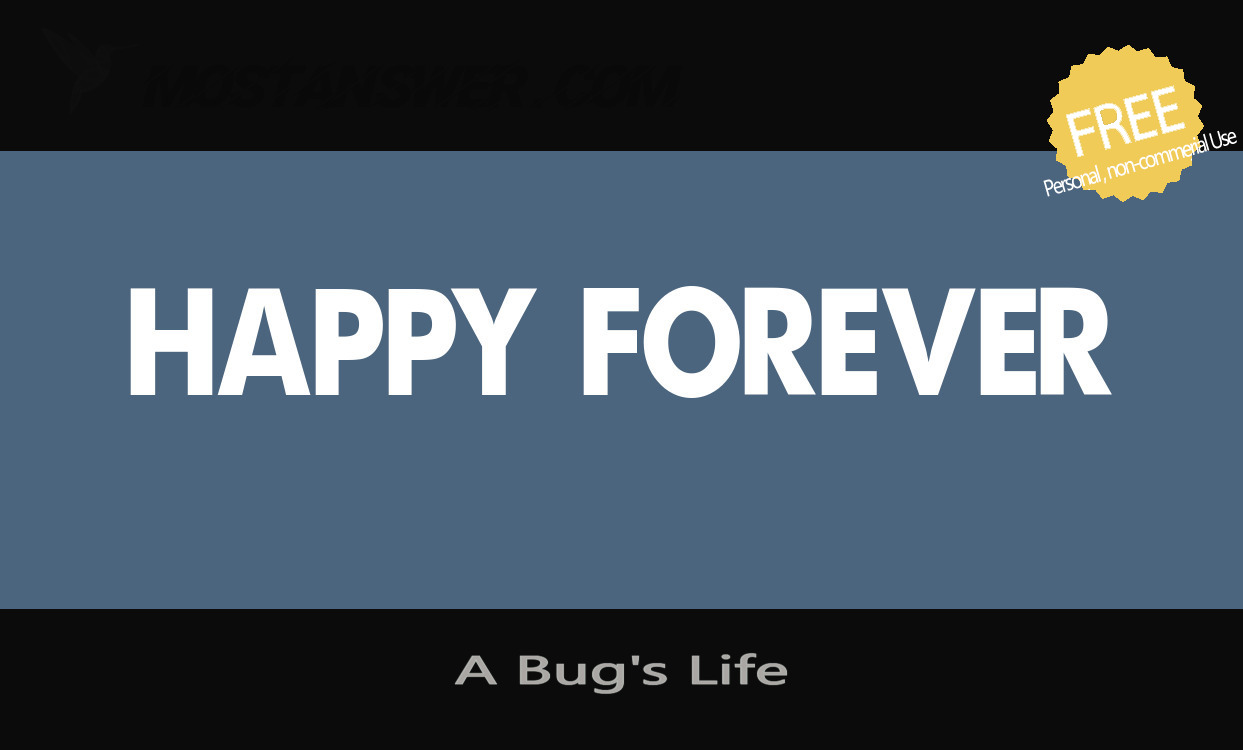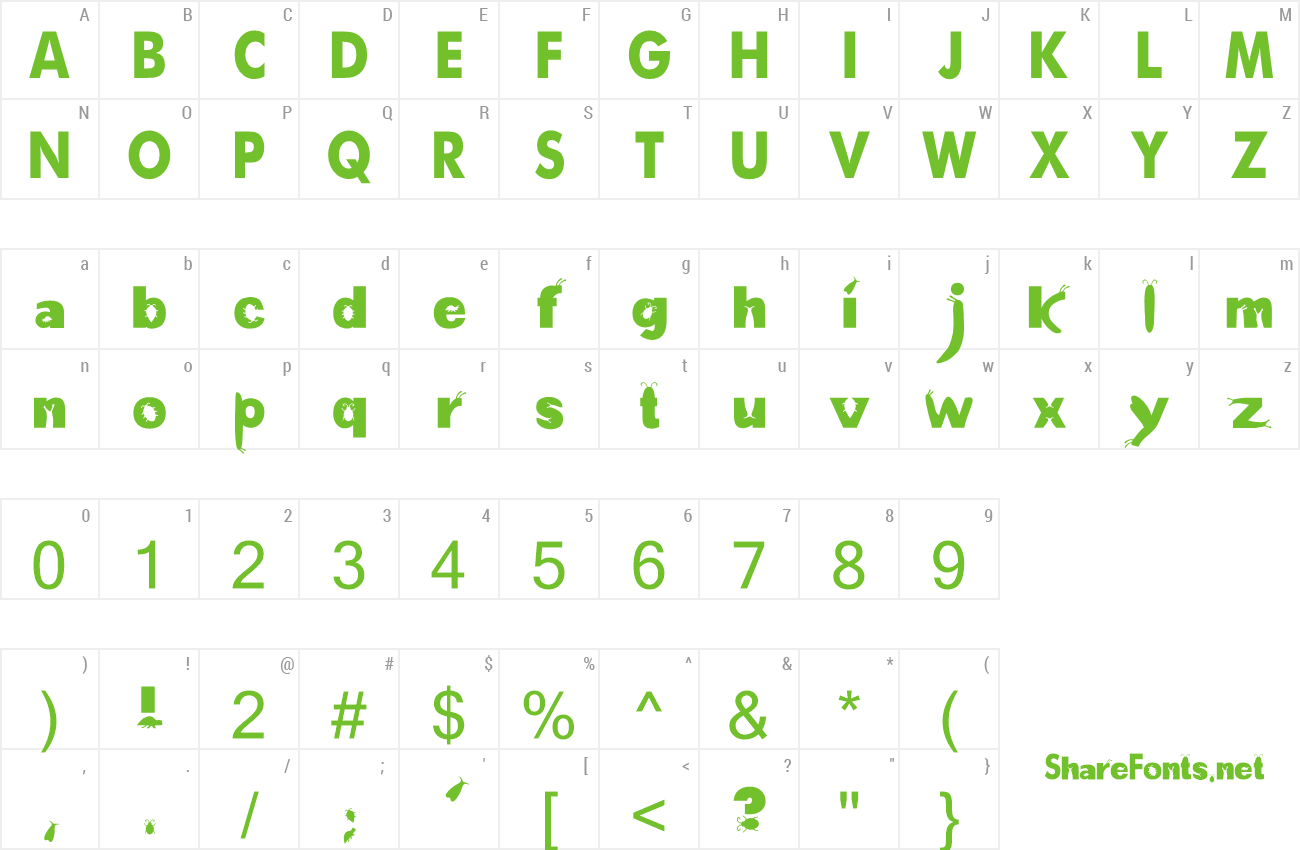
A Bug S Life Font
A Bug S Life Font - Create text graphics with a bug’s. Click now to create a custom image with your. Free download of a bug's life font family with 2 styles. A bug's life font download is available free from fontget. The font used for the film title on the poster is very similar to a bug’s life by jens r. The a bugs life font has been downloaded 349,799 times. This font has 2 variant available. The font is free to use and you can download the font for free here. A bug's life is a fancy type font that can be used on any device such as pc, mac, linux, ios and android.
Create text graphics with a bug’s. A bug's life is a fancy type font that can be used on any device such as pc, mac, linux, ios and android. Click now to create a custom image with your. The font used for the film title on the poster is very similar to a bug’s life by jens r. The a bugs life font has been downloaded 349,799 times. This font has 2 variant available. Free download of a bug's life font family with 2 styles. A bug's life font download is available free from fontget. The font is free to use and you can download the font for free here.
This font has 2 variant available. Free download of a bug's life font family with 2 styles. The font used for the film title on the poster is very similar to a bug’s life by jens r. A bug's life is a fancy type font that can be used on any device such as pc, mac, linux, ios and android. Click now to create a custom image with your. A bug's life font download is available free from fontget. The a bugs life font has been downloaded 349,799 times. The font is free to use and you can download the font for free here. Create text graphics with a bug’s.
a bug's life font
This font has 2 variant available. A bug's life font download is available free from fontget. The a bugs life font has been downloaded 349,799 times. Create text graphics with a bug’s. A bug's life is a fancy type font that can be used on any device such as pc, mac, linux, ios and android.
A Bug S Life Font by Filmhimmel
The a bugs life font has been downloaded 349,799 times. A bug's life is a fancy type font that can be used on any device such as pc, mac, linux, ios and android. This font has 2 variant available. The font used for the film title on the poster is very similar to a bug’s life by jens r. Free.
Create text graphics with a bug’s. A bug's life is a fancy type font that can be used on any device such as pc, mac, linux, ios and android. The a bugs life font has been downloaded 349,799 times. The font used for the film title on the poster is very similar to a bug’s life by jens r. The.
A bug's life is a fancy type font that can be used on any device such as pc, mac, linux, ios and android. Free download of a bug's life font family with 2 styles. The font is free to use and you can download the font for free here. A bug's life font download is available free from fontget. Click.
The a bugs life font has been downloaded 349,799 times. A bug's life font download is available free from fontget. The font used for the film title on the poster is very similar to a bug’s life by jens r. Click now to create a custom image with your. This font has 2 variant available.
Download free a bug's life Regular font A Bug s Life.ttf
A bug's life is a fancy type font that can be used on any device such as pc, mac, linux, ios and android. This font has 2 variant available. A bug's life font download is available free from fontget. Free download of a bug's life font family with 2 styles. Create text graphics with a bug’s.
a bug's life font
A bug's life is a fancy type font that can be used on any device such as pc, mac, linux, ios and android. Click now to create a custom image with your. The a bugs life font has been downloaded 349,799 times. This font has 2 variant available. A bug's life font download is available free from fontget.
Download free a bug's life Regular font A_Bug_s_Life.ttf
Click now to create a custom image with your. The a bugs life font has been downloaded 349,799 times. A bug's life font download is available free from fontget. A bug's life is a fancy type font that can be used on any device such as pc, mac, linux, ios and android. Create text graphics with a bug’s.
A Bug's Life Font UpFonts
A bug's life is a fancy type font that can be used on any device such as pc, mac, linux, ios and android. Create text graphics with a bug’s. The font used for the film title on the poster is very similar to a bug’s life by jens r. Click now to create a custom image with your. Free download.
The A Bugs Life Font Has Been Downloaded 349,799 Times.
Free download of a bug's life font family with 2 styles. A bug's life is a fancy type font that can be used on any device such as pc, mac, linux, ios and android. This font has 2 variant available. The font is free to use and you can download the font for free here.
Click now to create a custom image with your. The font used for the film title on the poster is very similar to a bug’s life by jens r. A bug's life font download is available free from fontget.